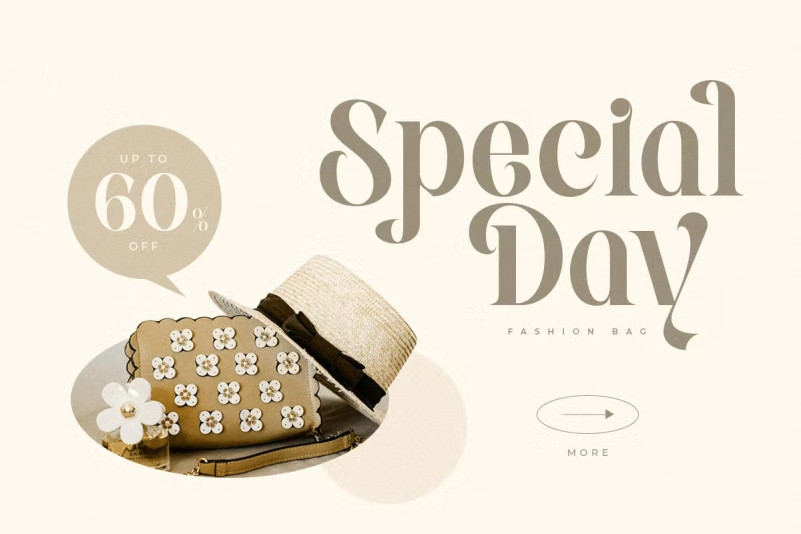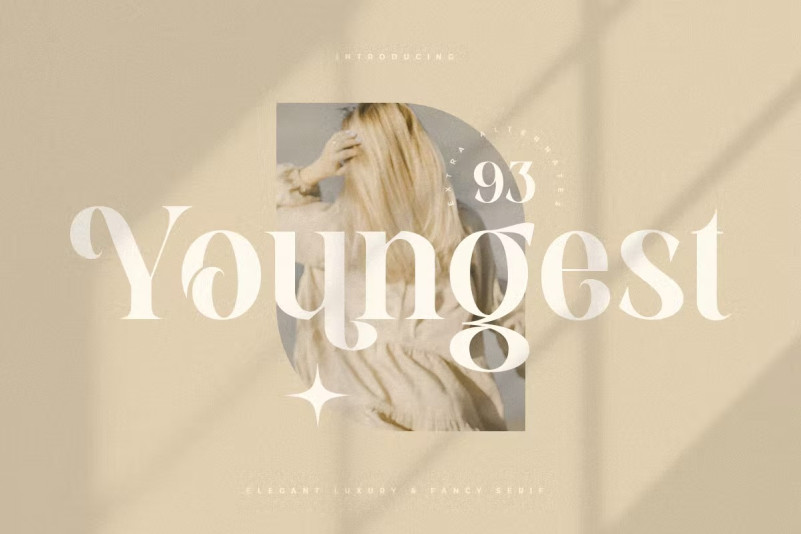
Youngest Font
Youngest Font-An Elegant Luxury Fancy Serif font we created especially for unique branding needs, with an elegant shape, will be ready to add value to your brand. It’s so nice to work with a designer or product owner who needs solutions to make their design look fresher and more modern. And especially for this font, we have prepared all the characters to help you create unlimited variations for your creative needs.